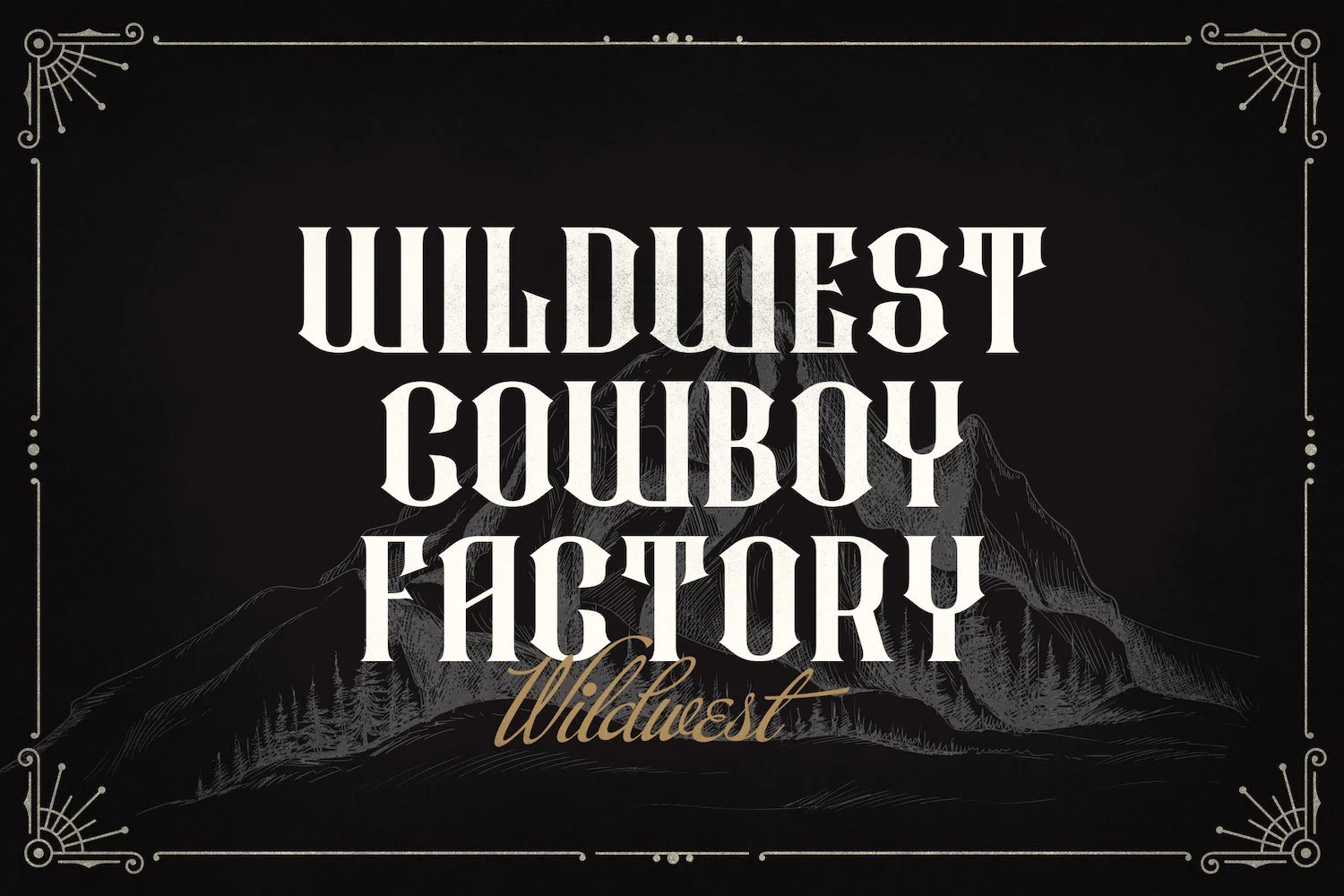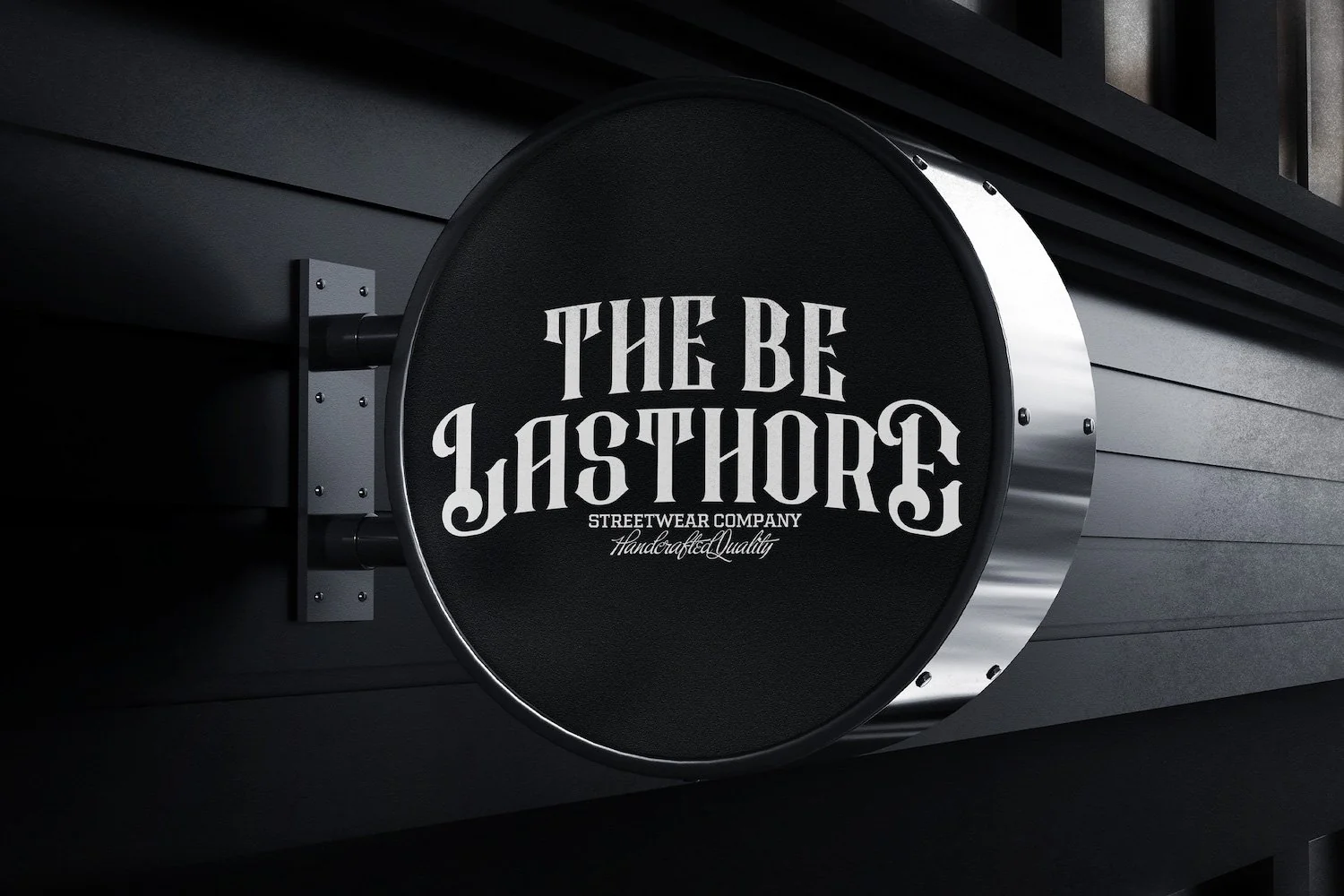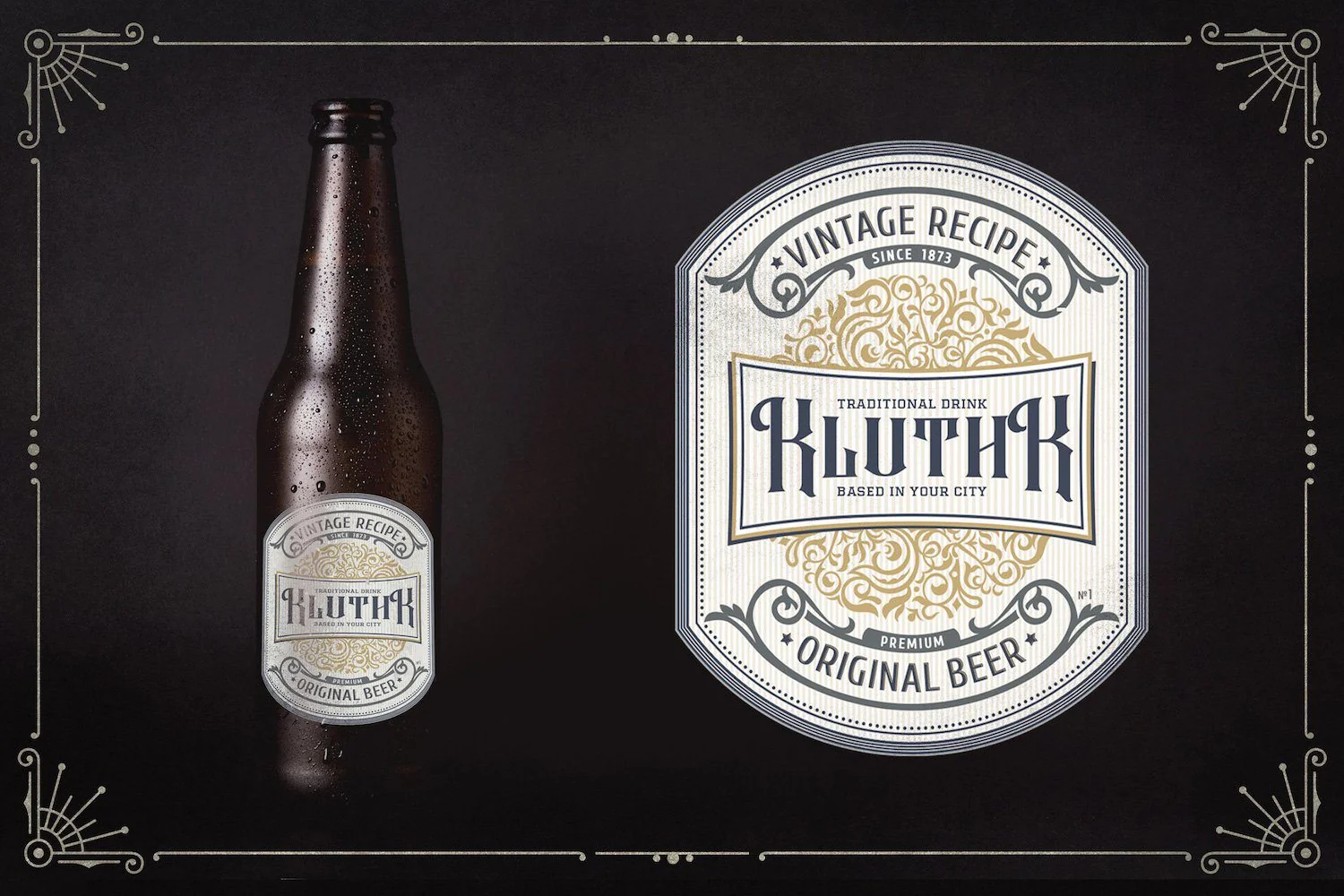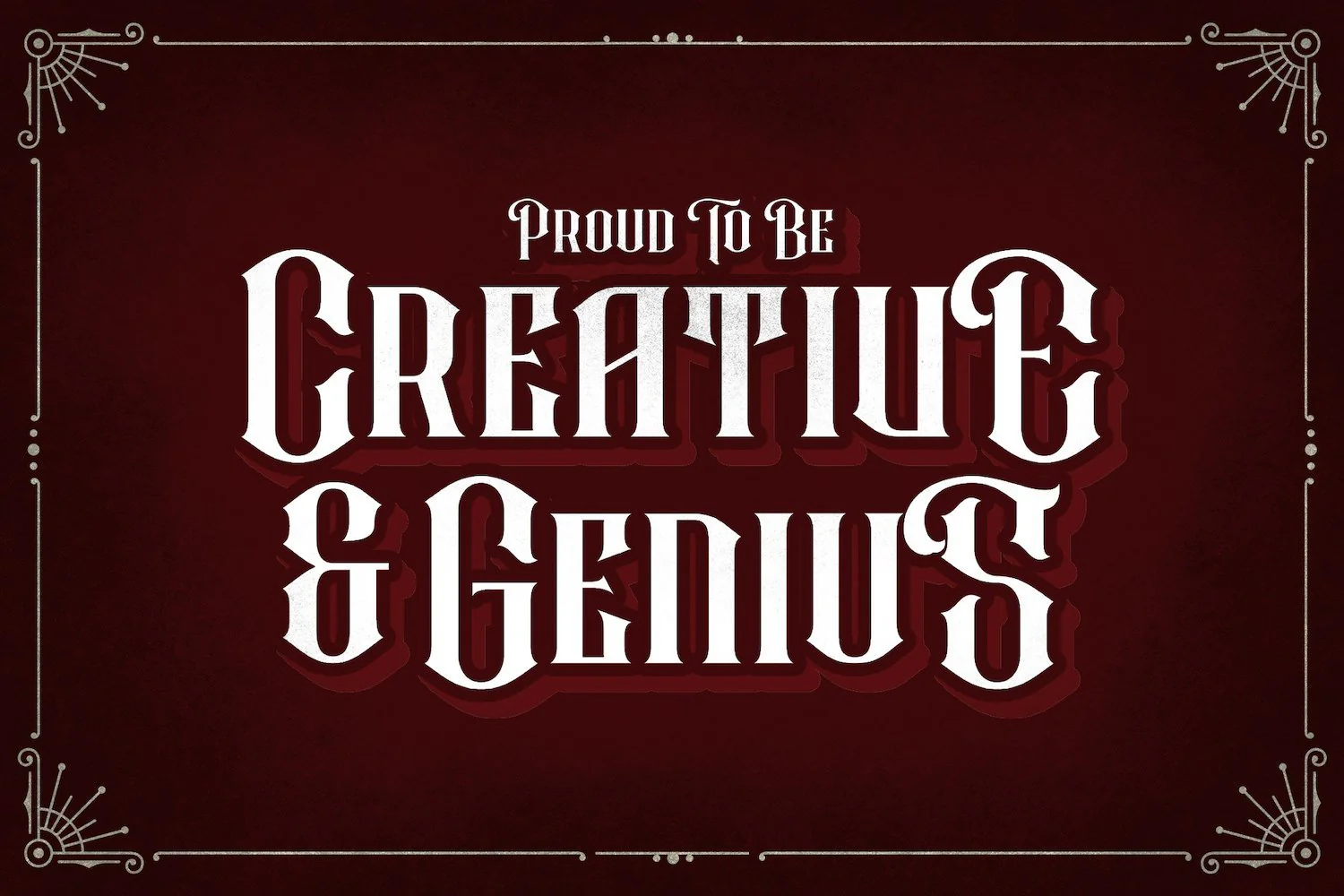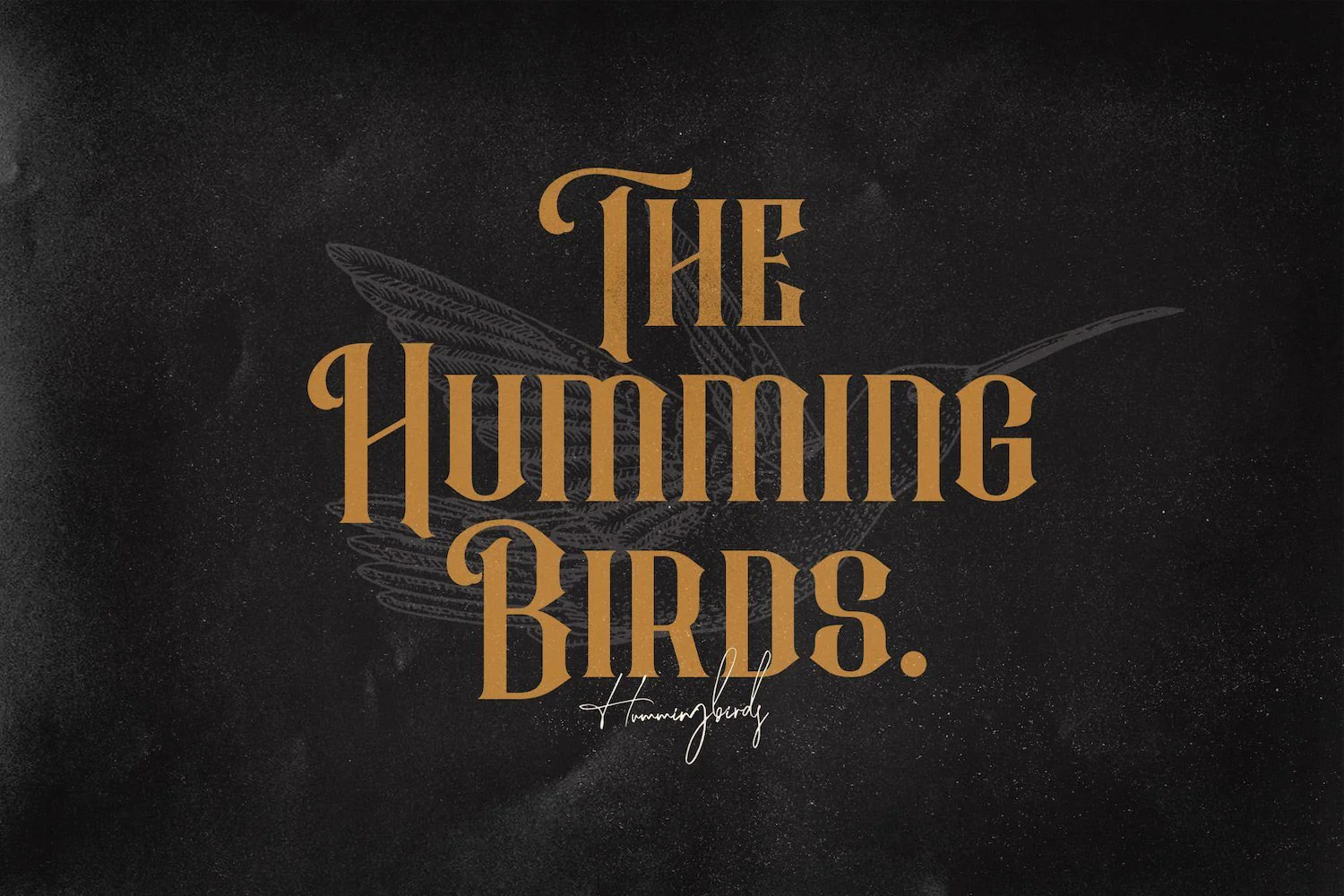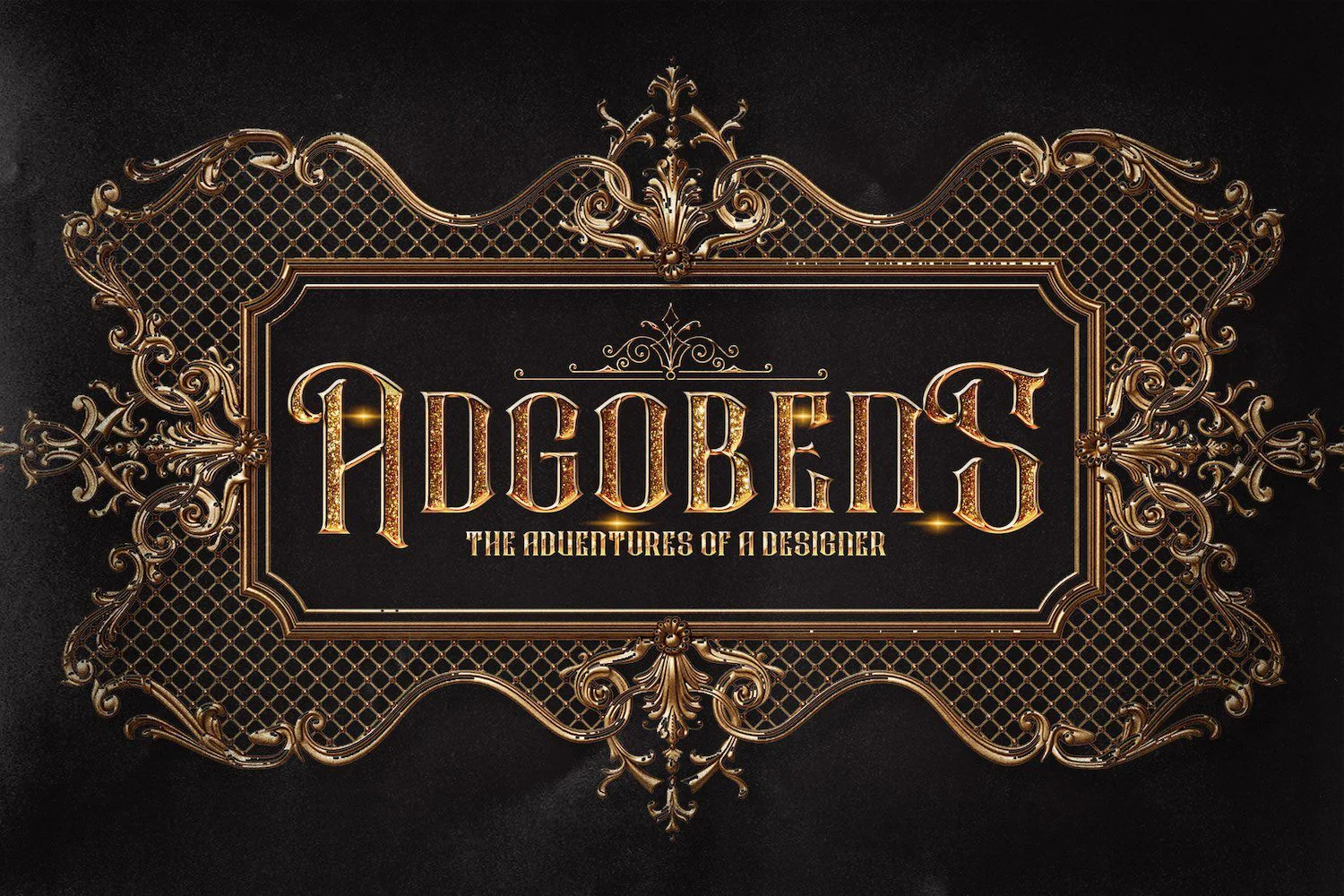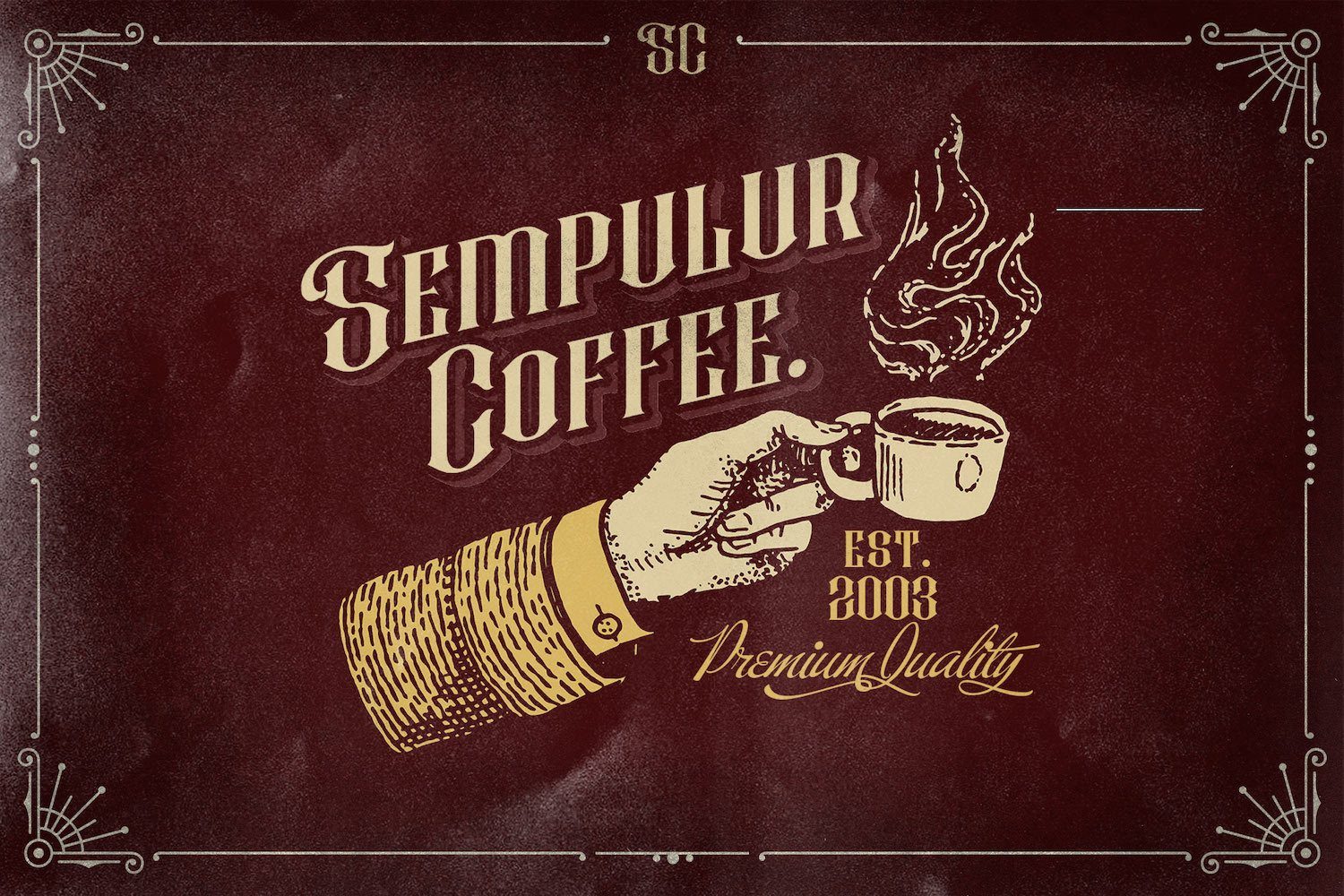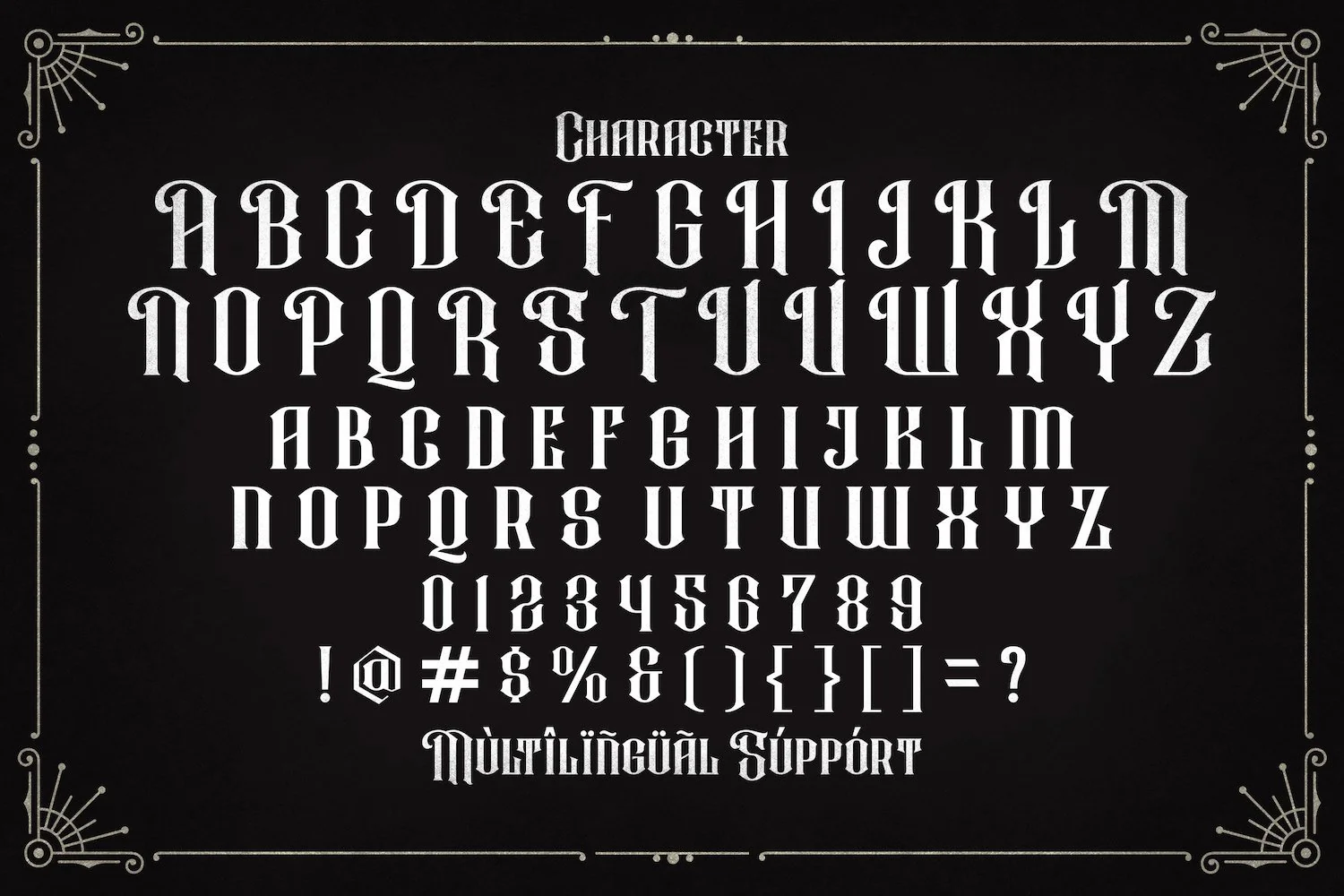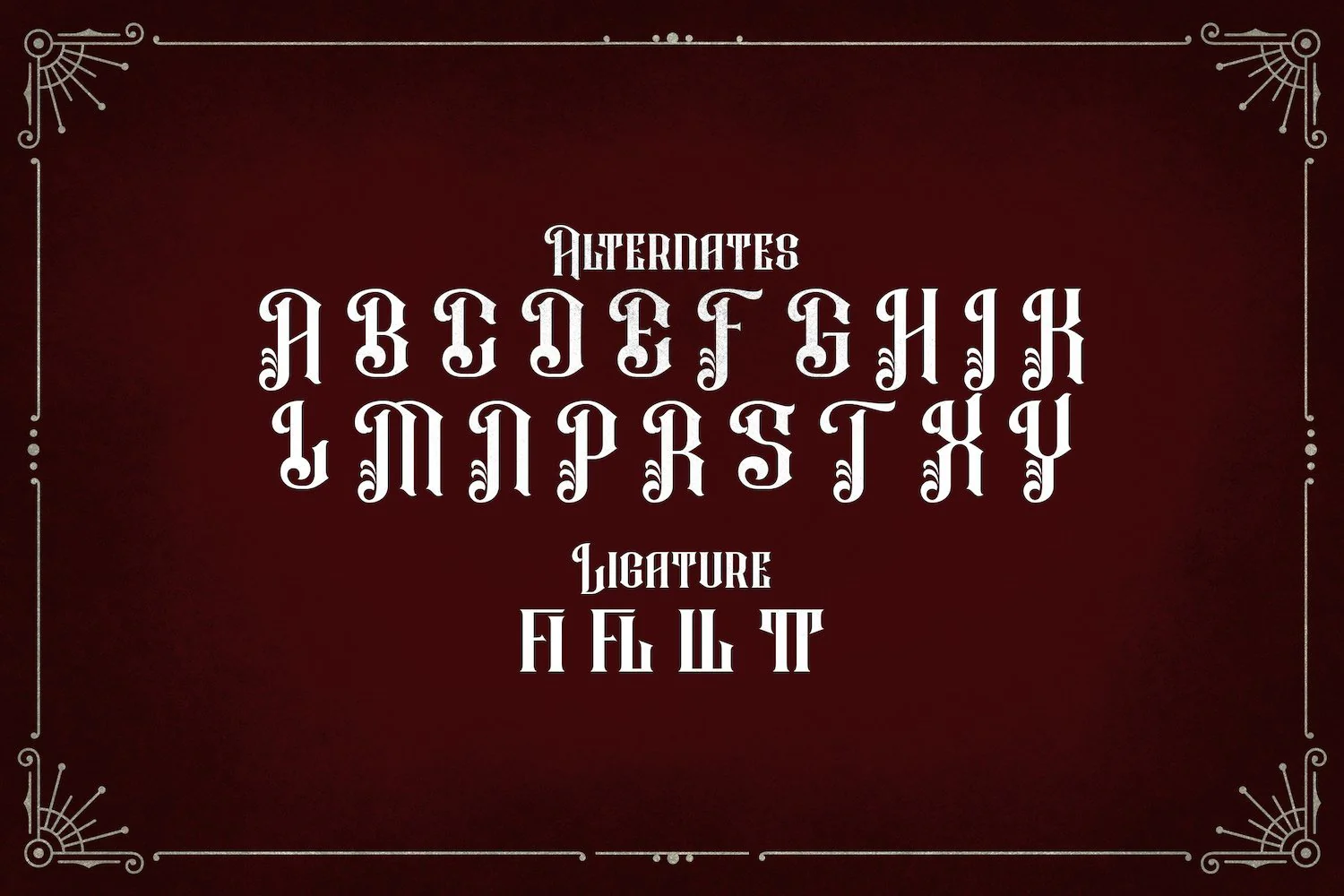
Rafiquell - Victorian Decorative Font
Introducing Rafiquell - Victorian Decorative Font
Rafiquell is a unique, vintage and elegant decorative font with victorian style. Rafiquell feels playfully nostalgic and delivers an incredible vintage aesthetic. Inspired by vintage tattoo design, Rafiquell is an absolutely stunning and eye-catching typeface. This typeface will look truly outstanding in a wide range of modern and classic designs, with its romantic and bold formation, as well as its attention to detail.
Introducing Rafiquell - Victorian Decorative Font
Rafiquell is a unique, vintage and elegant decorative font with victorian style. Rafiquell feels playfully nostalgic and delivers an incredible vintage aesthetic. Inspired by vintage tattoo design, Rafiquell is an absolutely stunning and eye-catching typeface. This typeface will look truly outstanding in a wide range of modern and classic designs, with its romantic and bold formation, as well as its attention to detail.